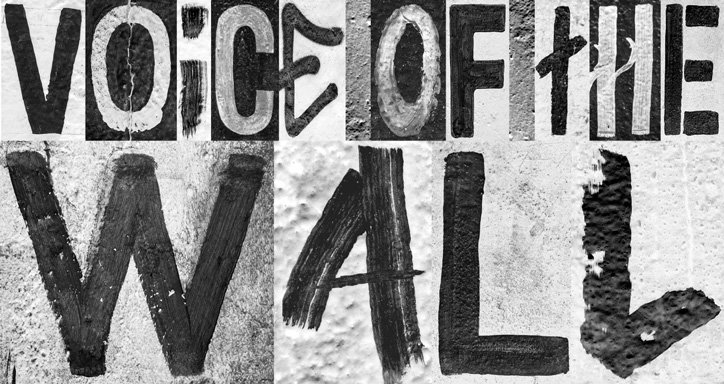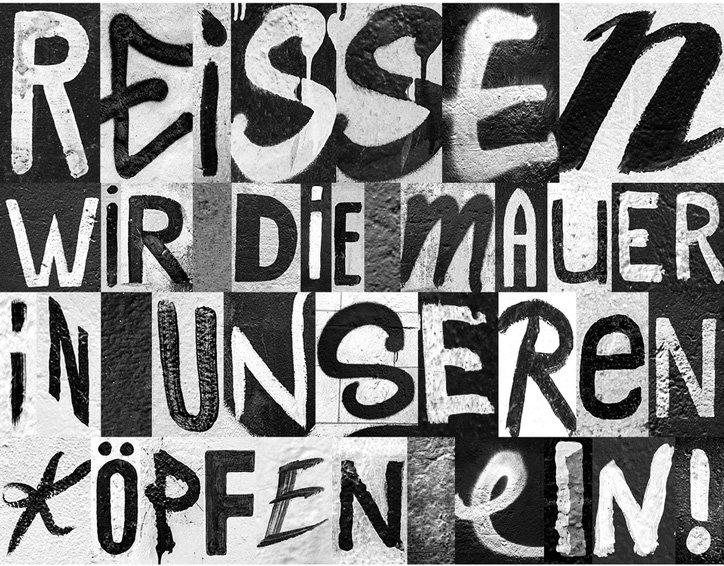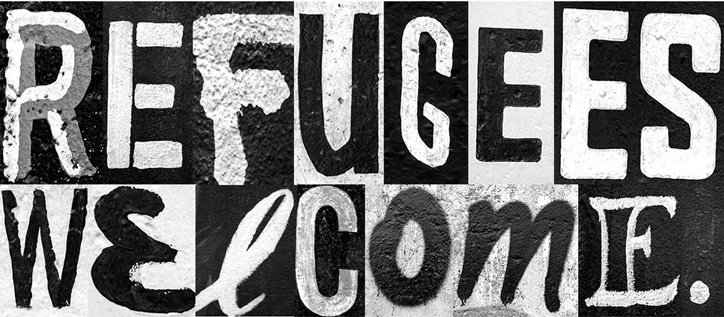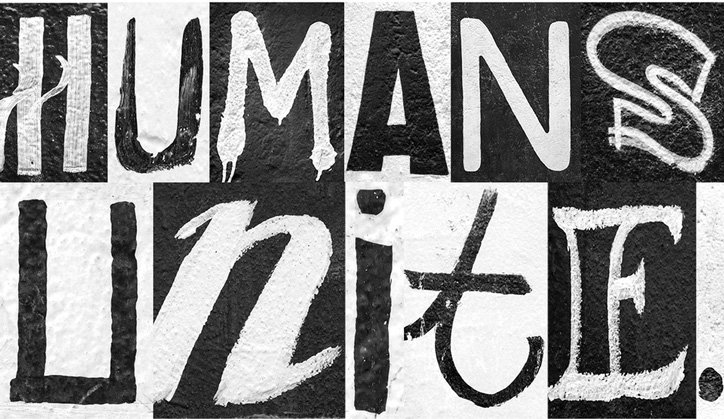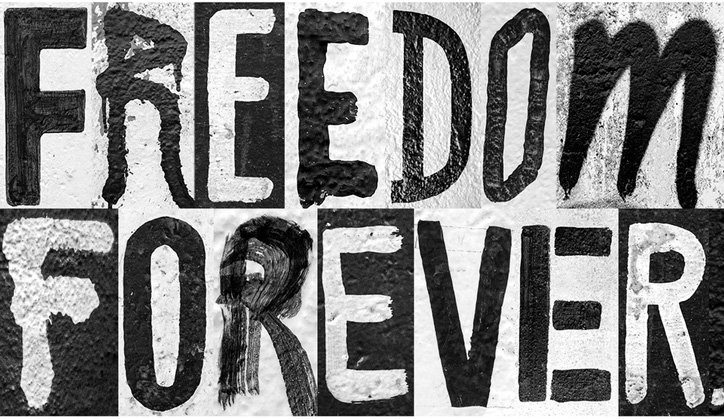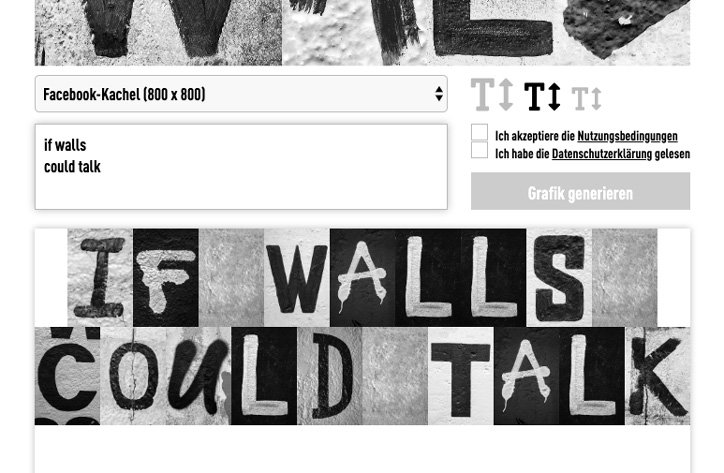
Berlin Wall graffiti is made into a typeface to warn how "division is freedom's biggest threat"
Heimat Berlin: Voice of the Wall for The Cultural Heirs
Heimat Berlin has developed the Voice of the Wall typeface for non-profit art association The Cultural Heirs, based on letterforms graffitied on the Berlin Wall. It marks the 30th anniversary of the Wall’s fall back in November 1989 and uses the occasion to warn world leaders of the “threat walls of all kinds can pose to society and freedoms”.
The typeface is free to use in an online tool, developed by visualtech, wherein you can type your text and download the graphic for use on social media. The project aims to encourage people to use it to make their own “statements of freedom,” which will be collected and turned into a book to be sent to world leaders. “The starting point was the question: if walls could talk, what would the Berlin Wall say today?” says a statement from Heimat. “In this way, the typeset allows the Wall a voice and the ability to make a statement about freedom in our world today.”
Each of the letterforms was drawn from photographs of graffiti on the Wall, which became a canvas for artists and activists during its existence, yet only on the West Berlin side as people were not permitted close enough to the Wall on the East. French street artist Thierry Noir is believed to be the first graffiti artist to begin painting on the Wall in 1984, though it was already covered in largely racist and anti-American comments. His work kickstarted the Wall as a platform for artistic expression and in turn, Keith Haring painted a 300-metre mural on the Wall in 1986, depicting people linked by their hands and feet to signify unity, though this had been painted over by the time the Wall was torn down.
Today, remnants of the Wall and its art are on show at the East Side Gallery in Berlin, including murals painted on a 1,316-metre preserved section.
The project is launched with a film depicting the “the suffering the Wall witnessed” and ends with the warning: “Division is freedom’s biggest threat”. The Cultural Heirs association, which commissioned the work, is committed to integration and violence prevention as well as the prevention of discrimination and inequalities in society.
Matthias Storath, CCO at Heimat, said in a statement about the work: “Street art and iconic design can have a dramatic impact on culture, and creating a campaign to celebrate freedom and warn about division to mark this important anniversary was very meaningful to us. We hope that this project will help remind audiences of our hard-won freedoms, which we must cherish and enjoy.”